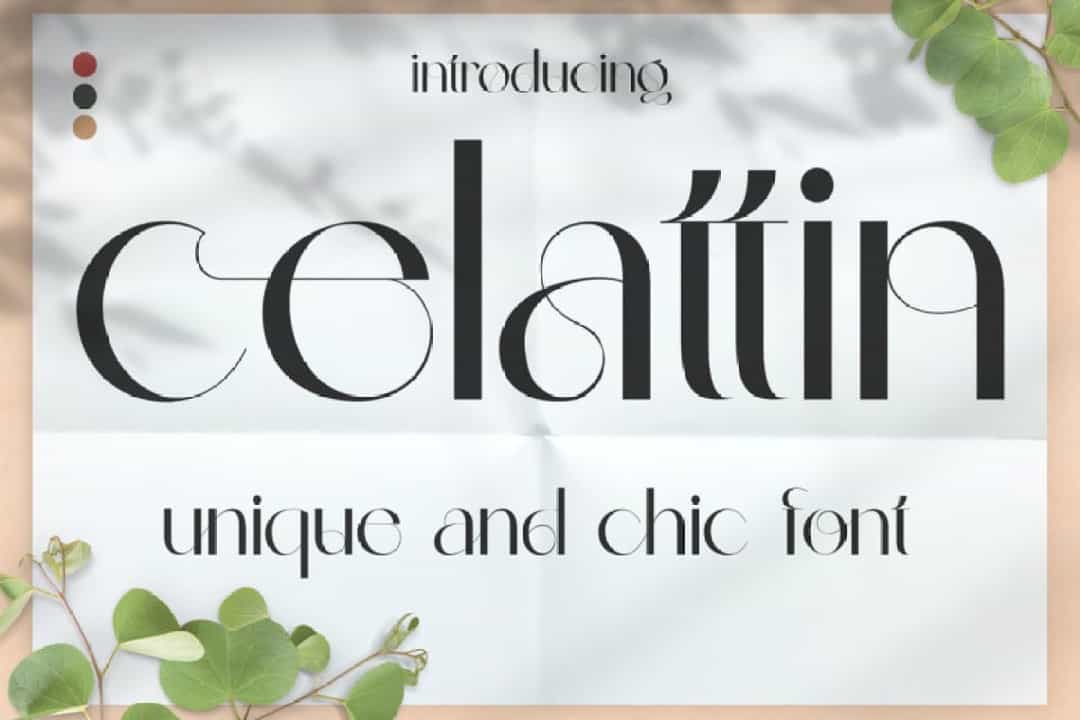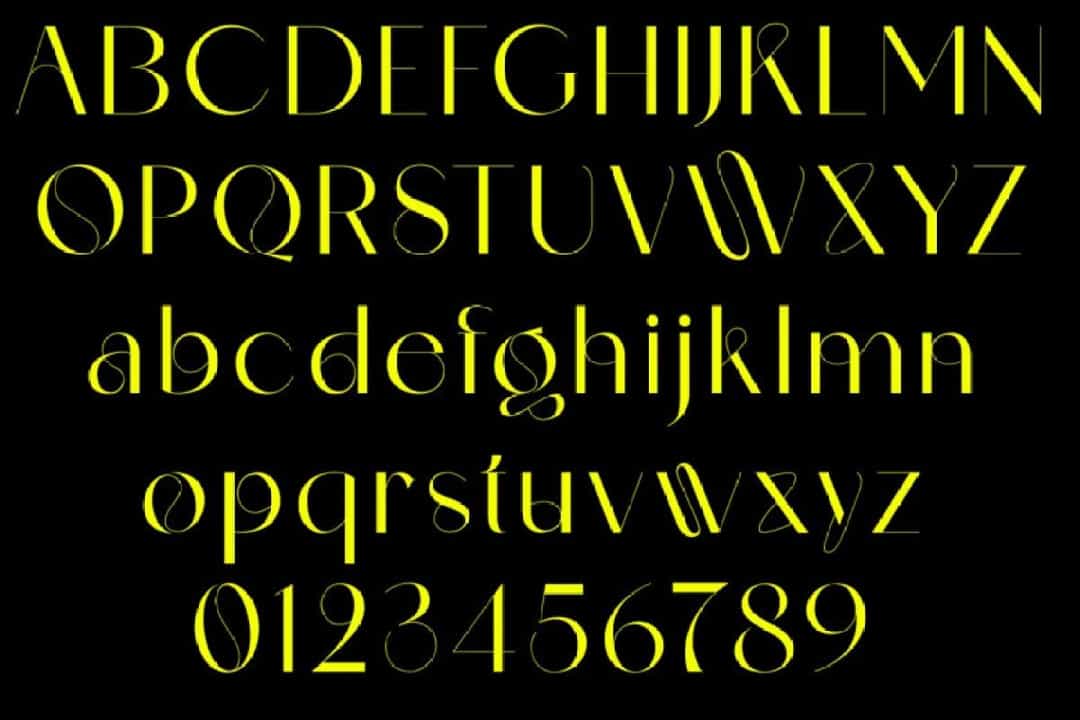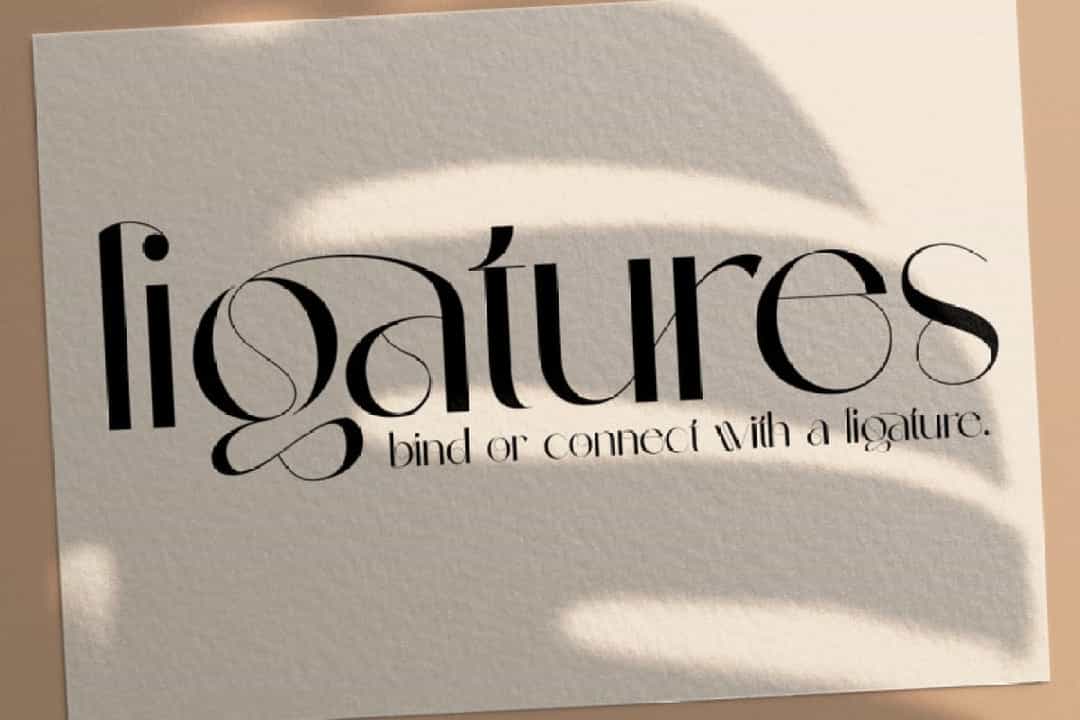
Discover Celattin Font, part of the Sans Serif Display Basic Personal collection—a versatile and unique font perfect for adding a personal touch to your projects. Download it for free and enjoy crafting designs with style, from invitations to social media posts. This font is available exclusively for personal use, giving you the freedom to create without limits. Unlock your creativity with Celattin Font today!
This Creative ligature font called Celattin Sans Serif Font is definitely something new and unique, you have probably never seen before. Enhancing the font with ligatures and characters, it features all European letters and was developed from different typography designs which were posted on social networks; these were then innovatively rearranged into a simple character font that can be used in various graphic designs.